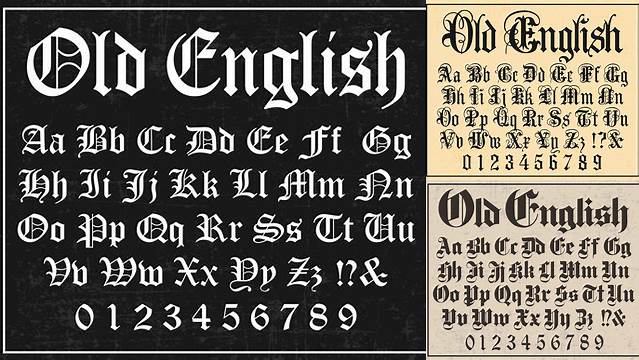
Old English fonts, also known as blackletter fonts, evoke a sense of history, tradition, and timeless elegance. These fonts, with their intricate strokes and distinctive letterforms, have graced everything from ancient manuscripts to modern-day logos, adding a touch of gravitas and sophistication. If you're looking to infuse your projects with a classic, vintage feel, exploring the world of Old English fonts is a must. In this comprehensive guide, we'll delve into the history, characteristics, and, most importantly, the freemercial use of these captivating typefaces. So, guys, let's get started on this journey through the world of Old English fonts!
Old English fonts, with their roots stretching back to medieval Europe, hold a unique position in the world of typography. Their distinctive appearance, characterized by thick strokes, sharp angles, and elaborate flourishes, instantly transports us to a bygone era. But what makes these fonts so enduringly popular? Is it their historical significance, their aesthetic appeal, or their versatility in design? The answer, in all probability, is a blend of all these factors. The beauty of Old English fonts lies not just in their visual appeal but also in their ability to evoke a sense of history and tradition. Imagine the opening credits of a historical drama, the logo of a prestigious university, or the cover of a classic novel – chances are, an Old English font is playing a starring role. This is because these fonts carry an inherent weight of history, lending an air of authenticity and authority to any project. However, the freemercial use aspect of Old English fonts is a critical consideration. Not all fonts are created equal, and understanding the licensing terms associated with a particular font is crucial for avoiding legal complications. We'll explore this aspect in detail, providing you with the knowledge and resources to confidently use Old English fonts in your commercial endeavors.
To truly appreciate the beauty and significance of Old English fonts, it's essential to understand their rich history. These fonts, also known as blackletter, Gothic, or textura fonts, have a lineage that stretches back to the medieval period. Their story is intertwined with the evolution of writing, printing, and design, making them a fascinating subject for anyone interested in typography. Let's embark on a historical journey to trace the origins and development of these iconic typefaces.
The story of Old English fonts begins in medieval Europe, specifically in the 12th century. Monks, the scribes of the time, were meticulously hand-copying religious texts, and they sought a script that was both legible and space-efficient. This led to the development of textura, the earliest form of blackletter. Textura was characterized by its narrow, angular letterforms, which allowed for more text to be crammed onto a single page – a crucial consideration when parchment was a precious commodity. Imagine the dedication and skill required to painstakingly create these texts by hand, each letter a work of art in itself! These early blackletter scripts were not just functional; they were also visually striking, reflecting the grandeur and solemnity of the religious texts they were used to transcribe. As printing technology emerged in the 15th century, blackletter fonts made the transition from handwritten manuscripts to printed books. Johannes Gutenberg, the inventor of the printing press, famously used a blackletter typeface called Textura for his groundbreaking Gutenberg Bible. This marked a pivotal moment in the history of typography, as blackletter fonts became synonymous with the printed word, solidifying their place in the cultural landscape. The influence of the Gutenberg Bible cannot be overstated; it not only revolutionized the dissemination of knowledge but also established blackletter as the dominant typeface for printed materials in Europe for centuries to come. This historical context helps us understand why Old English fonts still carry such weight and authority – they are a direct link to the dawn of the printing age.
As printing technology spread across Europe, various regional variations of blackletter fonts emerged. In Germany, Schwabacher and Fraktur became popular, each with its unique characteristics. Schwabacher was slightly rounder and more flowing than Textura, while Fraktur, with its broken strokes and ornate flourishes, became the quintessential German blackletter style. Meanwhile, in England, a distinct form of blackletter known as English Text or Old English developed. These regional variations reflected the diverse cultural and artistic landscapes of Europe, adding to the richness and complexity of the blackletter family. Each style possessed its own personality and aesthetic nuances, catering to the specific tastes and preferences of different regions and communities. The survival and evolution of these distinct styles demonstrate the adaptability and enduring appeal of blackletter fonts. While some fell out of favor over time, others, like Fraktur and English Text, continued to be used in specific contexts, preserving their historical legacy. The diversity within the blackletter family is a testament to its versatility and its ability to adapt to changing cultural and technological landscapes.
Despite their widespread use for centuries, Old English fonts eventually began to decline in popularity. The rise of humanist typefaces, inspired by classical Roman letterforms, in the Renaissance marked a shift in typographic preferences. Humanist fonts, with their cleaner lines and greater legibility, were seen as more modern and accessible. However, Old English fonts never completely disappeared. They continued to be used for specific purposes, such as formal documents, diplomas, and religious texts, where their air of tradition and authority was still valued. In the 19th century, a revival of interest in Gothic art and architecture led to a renewed appreciation for blackletter fonts. This revivalist movement sought to celebrate the artistic achievements of the medieval period, and Old English fonts were seen as an integral part of this aesthetic. This resurgence helped preserve these fonts and ensured their continued presence in design and culture. Today, Old English fonts enjoy a niche but significant role in typography. They are often used in branding, particularly for businesses that want to convey a sense of heritage, quality, or sophistication. Think of the logos of breweries, law firms, and universities – Old English fonts are a common choice for these applications. Their unique visual character and historical associations make them a powerful tool for creating a distinctive brand identity. So, guys, understanding the historical trajectory of Old English fonts helps us appreciate their enduring appeal and their continued relevance in contemporary design.
Old English fonts, also known as blackletter fonts, possess a unique set of characteristics that set them apart from other typefaces. Their distinctive letterforms, with their thick strokes, sharp angles, and elaborate flourishes, create a visually striking and historically evocative aesthetic. To effectively use these fonts in your design projects, it's essential to understand their key features. Let's delve into the anatomy and defining characteristics of Old English fonts.
The most immediately recognizable characteristic of Old English fonts is their angular and complex letterforms. Unlike the rounded, flowing shapes of humanist typefaces, blackletter fonts are characterized by sharp angles, broken strokes, and a high degree of ornamentation. The letters often appear tightly packed together, creating a dense and imposing visual texture. This angularity is a direct result of the way these fonts were originally written with a broad-nibbed pen. The pen's angle and the way it was held created thick vertical strokes and thin horizontal strokes, contributing to the distinctive appearance of blackletter. This characteristic angularity is what gives Old English fonts their unique personality and historical gravitas. It's also what makes them so effective at conveying a sense of tradition, authority, and formality. However, this complexity can also pose challenges in terms of legibility. The intricate details of the letterforms can make them difficult to read at small sizes or in large blocks of text. Therefore, careful consideration must be given to the context in which Old English fonts are used, ensuring that they enhance rather than detract from the overall design.
Another defining feature of Old English fonts is their high stroke contrast. This refers to the significant difference in thickness between the vertical and horizontal strokes of the letters. The vertical strokes are typically very thick, while the horizontal strokes are thin, creating a dramatic visual contrast. This contrast is another consequence of the broad-nibbed pen technique used in the creation of blackletter scripts. The angle of the pen naturally produces thick vertical strokes and thin horizontal strokes. This high stroke contrast contributes to the overall dramatic and imposing appearance of Old English fonts. It also enhances their legibility by clearly defining the letterforms. However, excessive stroke contrast can also create visual clutter, especially in complex blackletter styles. Therefore, designers need to strike a balance, choosing fonts with a level of stroke contrast that is appropriate for the intended application. The interplay between thick and thin strokes is a key element in the aesthetic of Old English fonts, and understanding this characteristic is crucial for effective font selection and usage.
Finally, the ornate flourishes and ligatures are hallmarks of Old English fonts. Many blackletter styles feature elaborate embellishments and connecting strokes that add to their visual complexity and historical charm. Flourishes are decorative extensions or strokes that extend beyond the main body of the letter, adding a touch of elegance and sophistication. Ligatures, on the other hand, are connecting strokes that join two or more letters together, creating a single, unified glyph. These ligatures were originally developed to improve the flow and legibility of handwritten scripts, but they also became a distinctive stylistic feature of blackletter fonts. The presence of flourishes and ligatures adds to the overall richness and visual interest of Old English fonts. They can create a sense of formality, tradition, and craftsmanship. However, overuse of ornamentation can also detract from legibility. Therefore, designers need to be mindful of the balance between visual appeal and readability when using fonts with extensive flourishes and ligatures. These decorative elements are a key part of the character of Old English fonts, but they should be used judiciously to enhance rather than overwhelm the design. Guys, by understanding these key characteristics – angularity, stroke contrast, and ornamentation – you can better appreciate the unique beauty and versatility of Old English fonts.
Now that we've explored the history and characteristics of Old English fonts, let's get down to the practical matter of finding freemercial options for your projects. The term "freemercial" implies you can use these fonts for both personal and commercial endeavors without incurring licensing fees. This opens up a world of creative possibilities without straining your budget. However, navigating the vast landscape of online font resources can be overwhelming. Let's discuss where to find freemercial Old English fonts and tips to ensure you're using them legally and ethically.
One of the best places to start your search for freemercial Old English fonts is online font foundries and marketplaces. Websites like Google Fonts, Font Squirrel, and DaFont offer a wide selection of fonts, including many blackletter styles, that are free for commercial use. Google Fonts is a particularly valuable resource, as it provides a curated collection of high-quality, open-source fonts that are readily available for use in web and print projects. Font Squirrel is another excellent option, offering a diverse range of freemercial fonts, with clear licensing information provided for each font. DaFont, while offering a vast collection of fonts, requires a bit more diligence in checking licensing terms, as the offerings come from various designers with different conditions. When browsing these resources, it's essential to use keywords like "Old English," "blackletter," "Gothic," and "freemercial" to narrow down your search. You can also filter your results based on licensing terms, ensuring that you only see fonts that are explicitly marked as free for commercial use. Remember, guys, it's always better to be safe than sorry when it comes to font licensing. Taking the time to verify the terms of use will save you potential legal headaches down the road.
Another valuable resource for finding freemercial Old English fonts is independent font designers and foundries. Many talented designers offer their fonts for free or under open-source licenses, allowing you to use them in your commercial projects without paying royalties. Websites like Behance and Dribbble are great platforms for discovering independent designers and their work. You can often find links to download their free fonts directly from their profiles or portfolios. Additionally, some foundries specialize in historical typefaces, including blackletter styles, and offer a selection of freemercial options. These foundries are often passionate about preserving typographic heritage and making it accessible to a wider audience. When downloading fonts from independent designers or foundries, it's crucial to carefully review the license agreement. While the font may be offered for free, there might be specific conditions attached, such as requiring attribution or prohibiting modification of the font files. By respecting these conditions, you're not only ensuring legal compliance but also supporting the designers and their creative endeavors. So, guys, take the time to explore the work of independent designers – you might discover some hidden gems that perfectly suit your project needs.
Before using any Old English font in your commercial projects, always double-check the license. This is the golden rule of freemercial font usage. Even if a font is advertised as free, it's essential to verify the specific terms and conditions outlined in the license agreement. Look for a file named "LICENSE.txt" or similar within the font download package. This file should clearly state the permitted uses of the font, including whether it can be used for commercial purposes, whether attribution is required, and whether modifications are allowed. If you're unsure about any aspect of the license, it's always best to contact the font designer or foundry directly for clarification. Using a font without the proper license can lead to legal repercussions, including fines and cease-and-desist orders. Protecting yourself and your clients by ensuring compliance with licensing terms is crucial. Remember, guys, the internet is full of resources, but not all of them are reliable. Taking the extra step to verify the license will give you peace of mind and allow you to use Old English fonts in your projects with confidence. So, happy font hunting, and always remember to read the fine print!
Old English fonts, with their distinctive appearance and historical associations, can be a powerful tool in design. However, their unique characteristics also mean that they require careful handling. Using these fonts effectively involves understanding their strengths and limitations, and applying them in a way that enhances rather than detracts from your overall design. Let's explore some best practices for using Old English fonts in your projects.
The first and perhaps most crucial best practice is to use Old English fonts sparingly. These fonts are highly decorative and attention-grabbing, and overusing them can quickly lead to visual clutter and fatigue. Imagine a website or document where every heading, paragraph, and button is set in an Old English font – the effect would likely be overwhelming and difficult to read. Old English fonts are best used as accent fonts, to add a touch of elegance or historical flair to specific elements, such as logos, headings, or invitations. Think of them as the spice in your design recipe – a little goes a long way. Pairing them with a cleaner, more legible sans-serif or serif font for body text is a common and effective strategy. This creates a visual hierarchy that guides the viewer's eye and ensures readability. When choosing an Old English font, consider the overall tone and message you want to convey. Some blackletter styles are more formal and traditional, while others have a more contemporary or playful feel. Selecting a font that aligns with your brand identity and design objectives is essential for creating a cohesive and impactful visual communication. Remember, guys, less is often more when it comes to Old English fonts. Use them judiciously, and they can add a touch of magic to your designs.
Another important consideration when working with Old English fonts is legibility. As we've discussed, these fonts are characterized by complex letterforms, high stroke contrast, and ornate flourishes. While these features contribute to their visual appeal, they can also make them challenging to read, especially at small sizes or in large blocks of text. Therefore, it's crucial to ensure that your Old English font is legible in the context in which it's being used. Avoid using them for body text or other applications where readability is paramount. If you're using an Old English font for a heading or logo, make sure the letterforms are clear and distinct, and that there's sufficient spacing between the letters and words. Consider the size and resolution of the final output. A font that looks crisp and clear on a high-resolution screen might appear blurry or illegible when printed at a small size. Test your designs in different formats and sizes to ensure that the Old English font remains readable. Experiment with different font weights and styles to find the best balance between visual appeal and legibility. Some blackletter fonts are available in multiple weights, allowing you to choose a bolder or lighter option depending on the specific application. Remember, guys, your design should be both beautiful and functional. Prioritizing legibility will ensure that your message is effectively communicated.
Finally, pairing Old English fonts with other typefaces requires careful consideration. The goal is to create a harmonious and balanced visual composition. As a general rule, it's best to pair Old English fonts with simpler, cleaner typefaces, such as sans-serif or humanist serif fonts. These fonts provide a visual contrast that allows the Old English font to stand out while maintaining overall legibility. Avoid pairing Old English fonts with other highly decorative or ornate typefaces, as this can create a cluttered and overwhelming effect. Consider the historical context of your design. If you're aiming for a vintage or historical feel, pairing your Old English font with a classic serif typeface can be effective. If you want to create a more contemporary look, try pairing it with a clean, modern sans-serif font. Experiment with different font pairings to see what works best for your specific project. Use online font pairing tools and resources to get inspiration and ideas. These tools can help you visualize different font combinations and assess their effectiveness. Remember, guys, the right font pairing can elevate your design and create a polished, professional look. Take the time to explore different options and find the perfect match for your Old English font. In conclusion, using Old English fonts effectively requires a thoughtful approach, careful consideration of legibility, and a keen eye for font pairing. By following these best practices, you can harness the unique power of these typefaces to create stunning and impactful designs.
Old English fonts, with their rich history, distinctive characteristics, and freemercial availability, offer a unique and valuable resource for designers and creatives. From their origins in medieval manuscripts to their modern-day applications in branding and design, these fonts have stood the test of time, adding a touch of elegance, tradition, and sophistication to a wide range of projects. By understanding their history, key features, and best practices for usage, you can confidently incorporate Old English fonts into your work and create visually stunning and impactful designs.
We've journeyed through the fascinating history of Old English fonts, tracing their evolution from the meticulous hand-lettering of medieval monks to their adoption by Johannes Gutenberg and their subsequent spread across Europe. We've explored the regional variations that emerged, from the German Fraktur to the English Text, and we've seen how these fonts have been revived and reinterpreted throughout history. This historical context provides a deep appreciation for the enduring appeal of Old English fonts and their ability to evoke a sense of the past. We've also delved into the key characteristics of these fonts, examining their angular letterforms, high stroke contrast, and ornate flourishes. Understanding these features is essential for effectively using Old English fonts in your designs. We've discussed the importance of legibility and the need to use these fonts sparingly, as accent fonts rather than for body text. And we've explored the art of font pairing, emphasizing the value of combining Old English fonts with simpler, cleaner typefaces to create a balanced and harmonious visual composition. Guys, this comprehensive understanding of the history and characteristics of Old English fonts will empower you to use them with confidence and creativity.
One of the most exciting aspects of Old English fonts is their freemercial availability. The ability to use these fonts for both personal and commercial projects without incurring licensing fees opens up a world of possibilities for designers, entrepreneurs, and creatives of all kinds. We've discussed the importance of finding reliable resources for freemercial fonts, such as Google Fonts, Font Squirrel, and independent font designers and foundries. And we've emphasized the critical need to always double-check the license agreement before using any font, ensuring that you're complying with the terms and conditions. This commitment to ethical font usage is essential for protecting yourself and your clients from legal complications. Guys, the abundance of freemercial Old English fonts makes them an accessible and affordable option for anyone who wants to add a touch of classic elegance to their designs. So, embrace the opportunity to explore these fonts and experiment with their unique visual character.
In conclusion, Old English fonts are more than just a stylistic choice – they are a link to the past, a testament to the enduring power of typography, and a valuable tool for creating visually compelling designs. By understanding their history, characteristics, and best practices for usage, and by taking advantage of the freemercial options available, you can confidently incorporate these fonts into your projects and create a lasting impression. So, go forth and embrace the timeless elegance of Old English fonts – let your creativity soar!